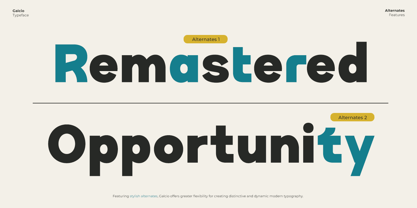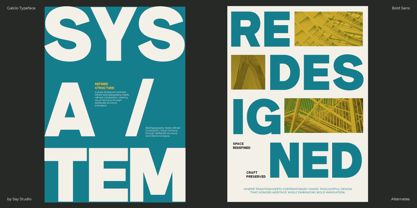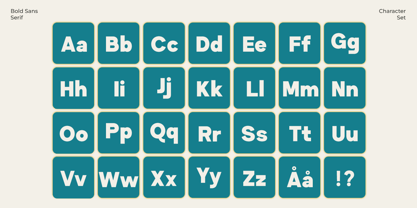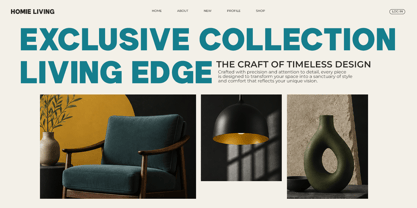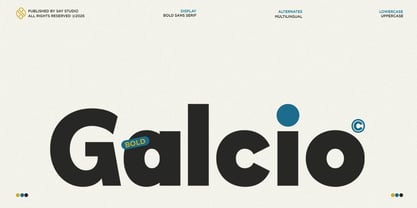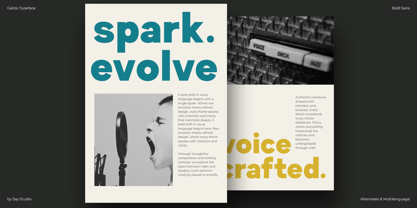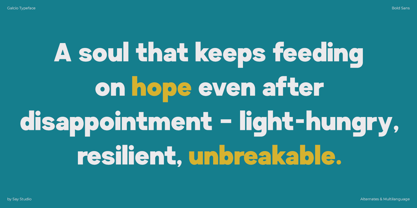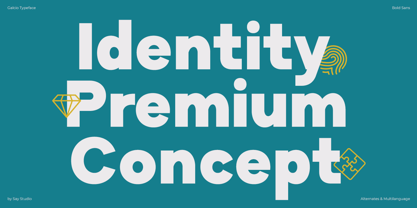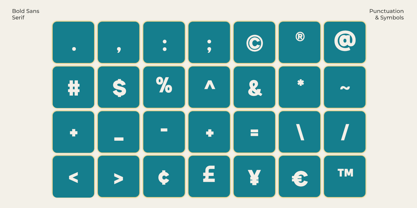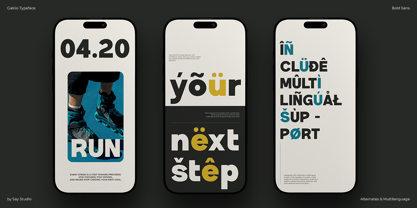
Galcio
La familia tipográfica Galcio fue diseñada por Mussyayin y publicada por Say Studio. Galcio contiene 2 estilos y opciones de paquete familiar. Más información sobre esta familia
Galcio is a modern bold sans serif font designed to deliver strong visual impact with exceptional clarity. Featuring clean geometric shapes, contemporary proportions, and eye-catching letterforms, it is perfect for designers who want to create bold, memorable typography across digital and print media.
Whether you're building a modern brand identity, editorial layout, technology campaign, social media content, advertising, website interface, or premium packaging, Galcio provides excellent readability while maintaining a confident and professional aesthetic. Its versatile design makes it suitable for logos, headlines, posters, presentations, UI design, corporate branding, and creative marketing projects.
Crafted with multilingual support and complete punctuation, Galcio is a reliable display typeface for creatives seeking a bold, minimal, and contemporary font that performs beautifully in a wide range of professional applications.
• Stylistic Ligature